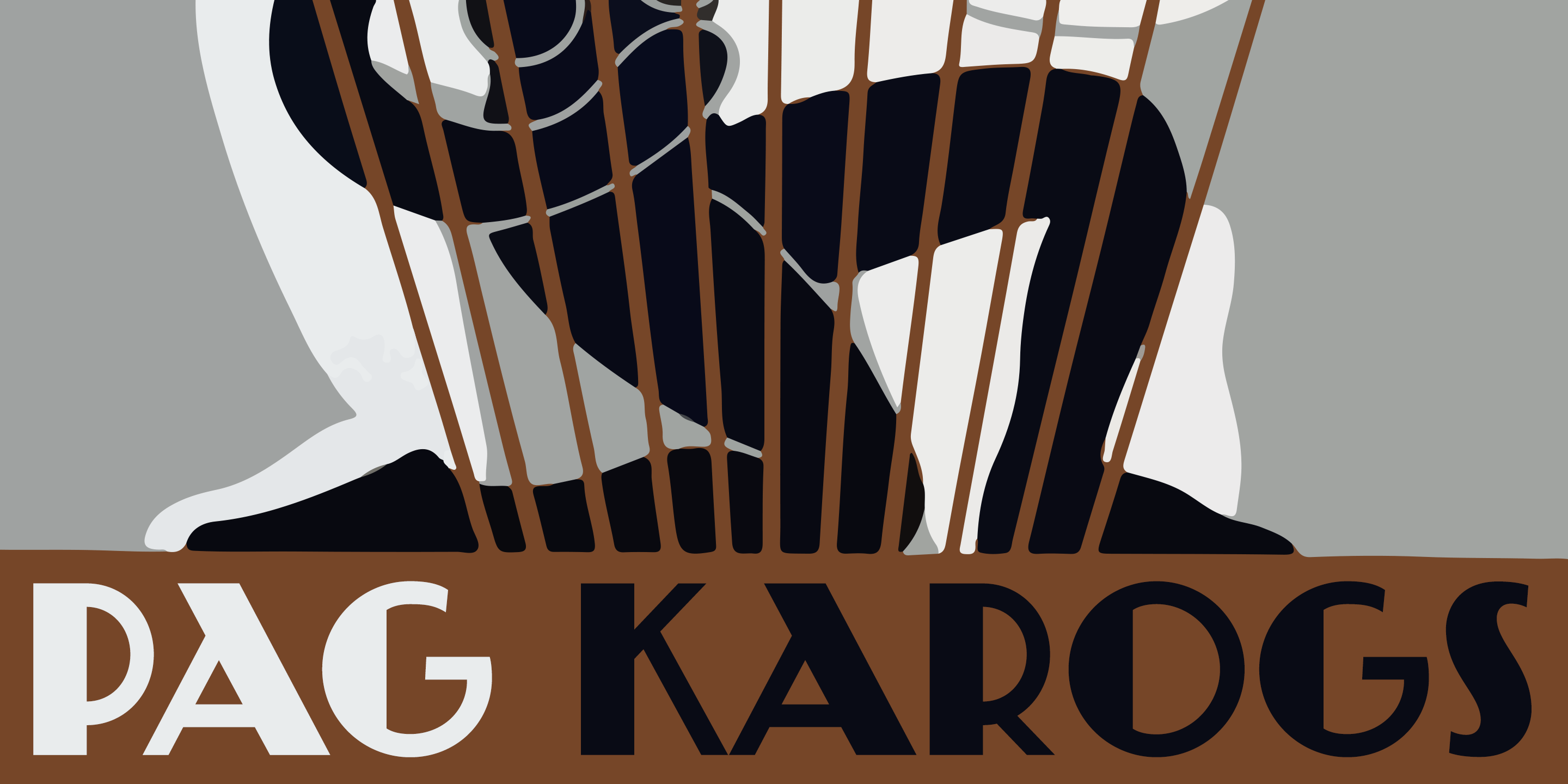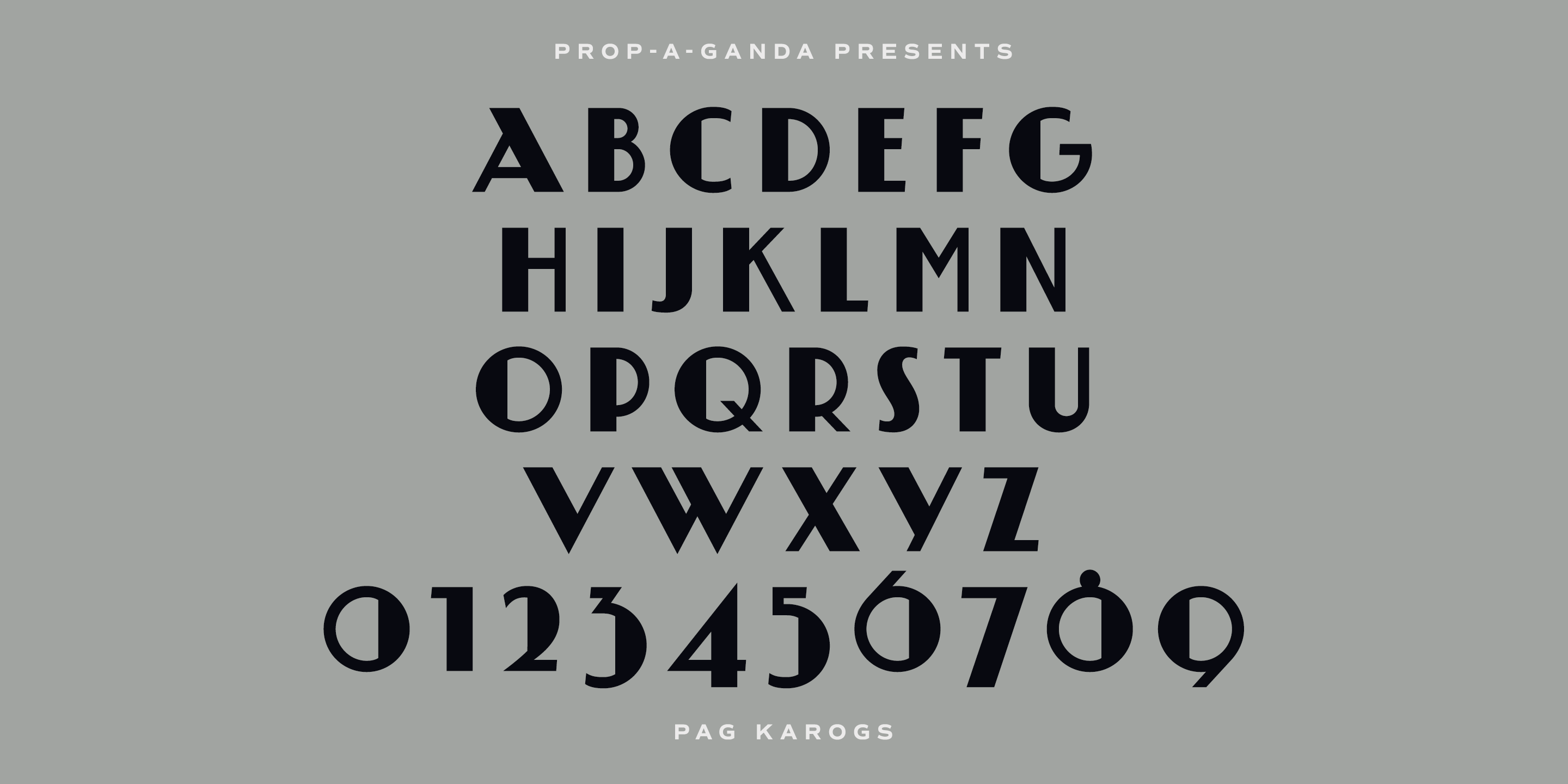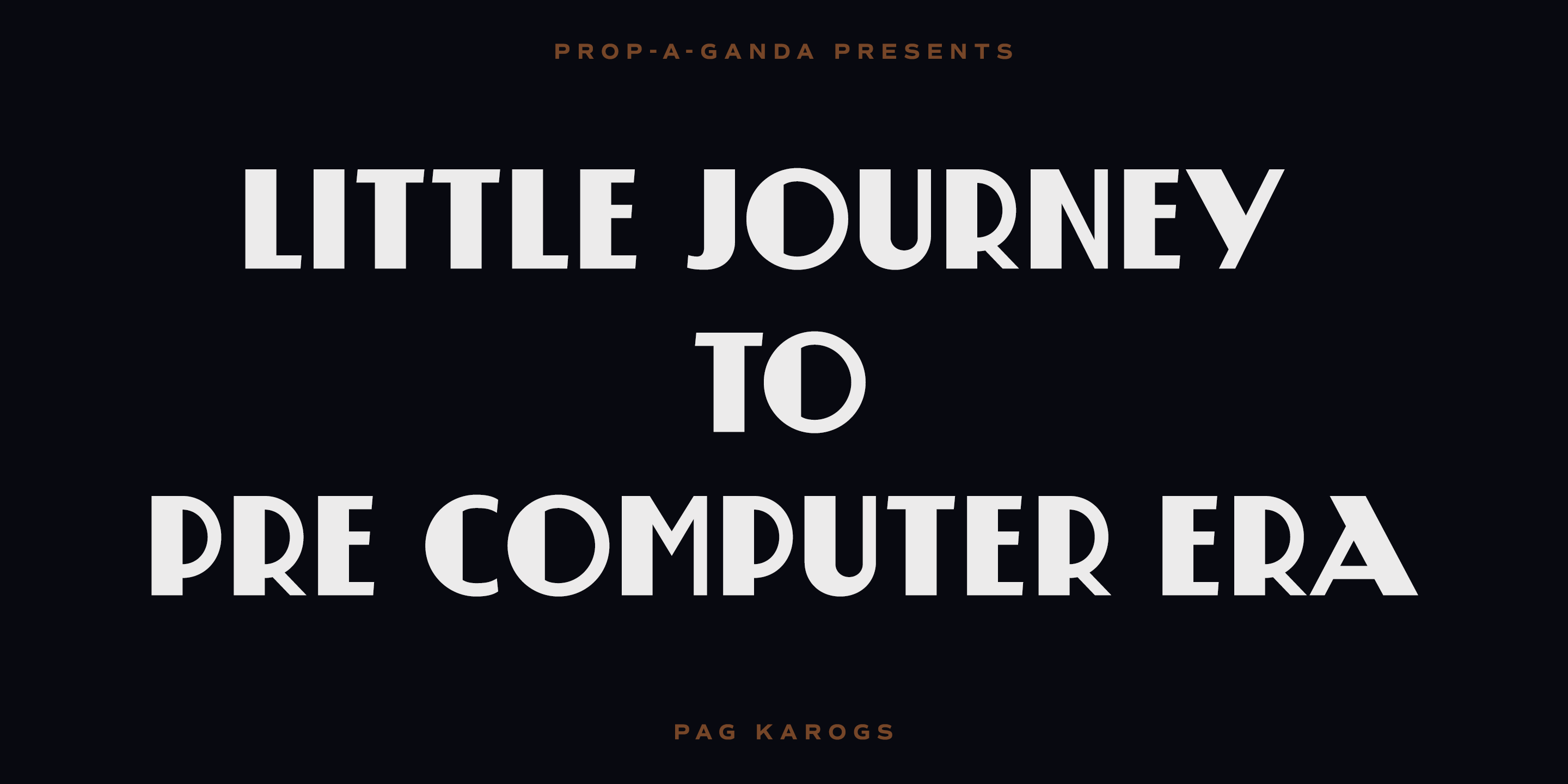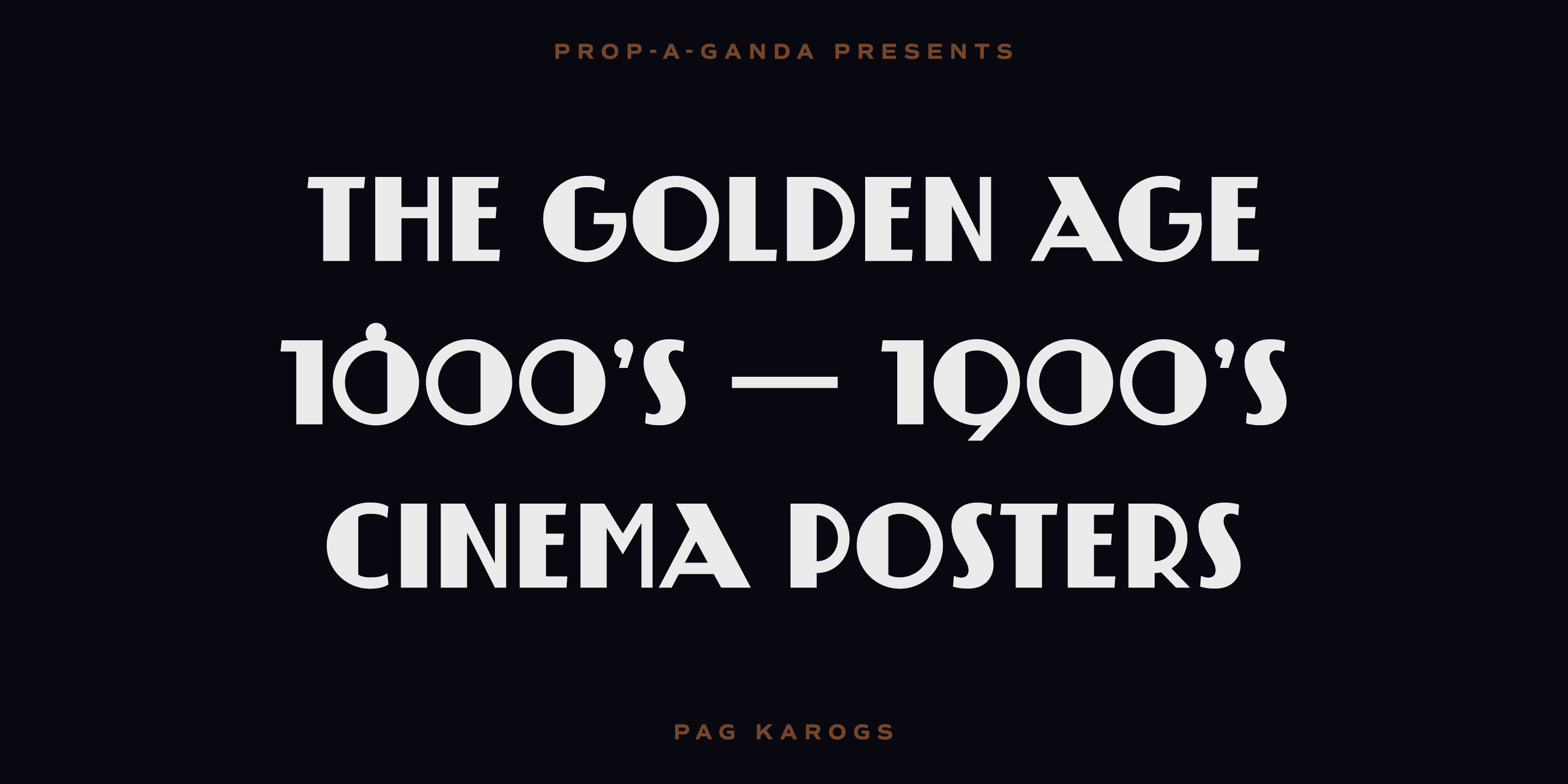
PAG Karogs
Inspired by and based on retro propaganda posters, movie posters, shopfront lettering & advertisements in the early 20th century. This is perfect font for your retrostyle project.